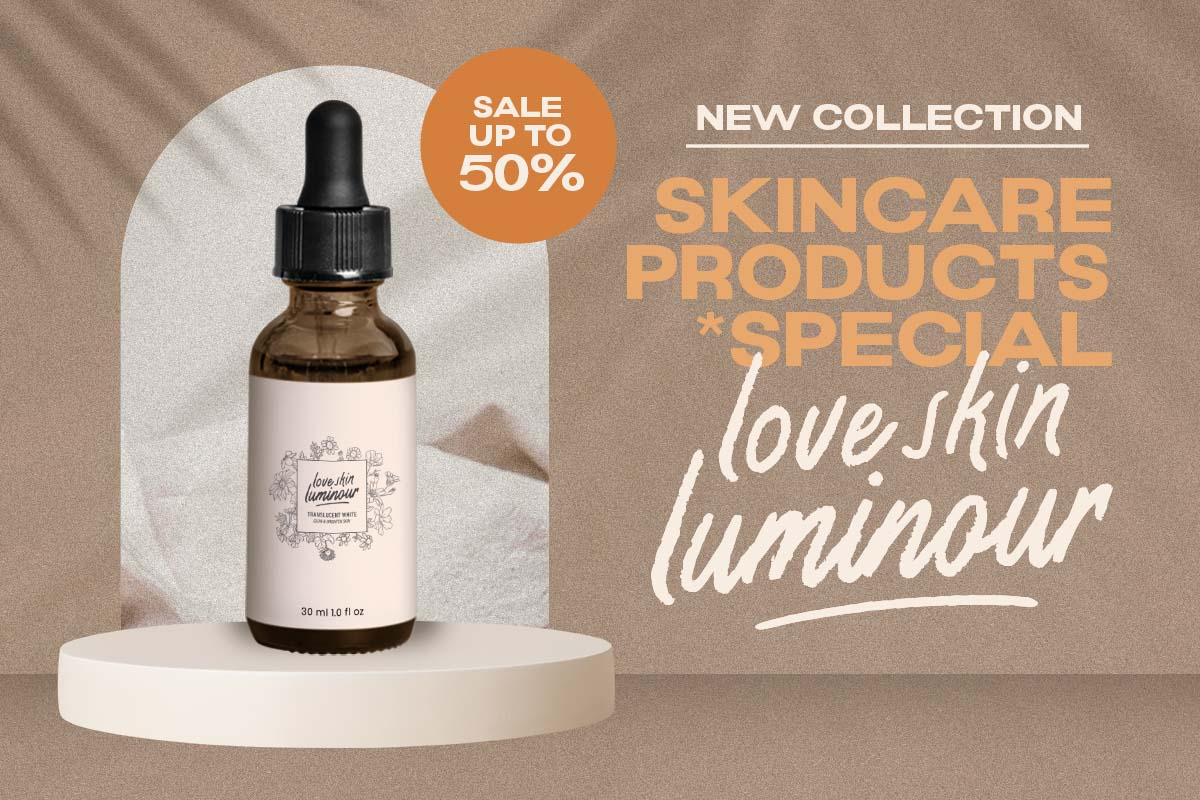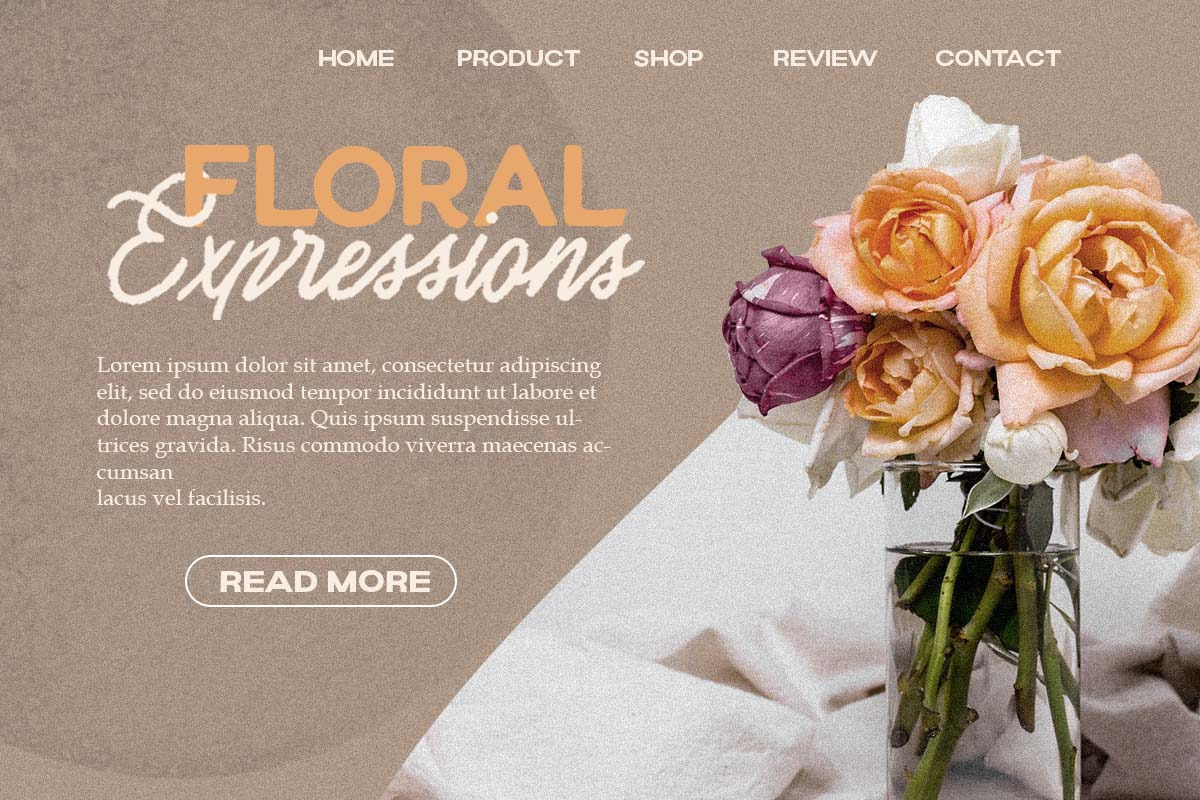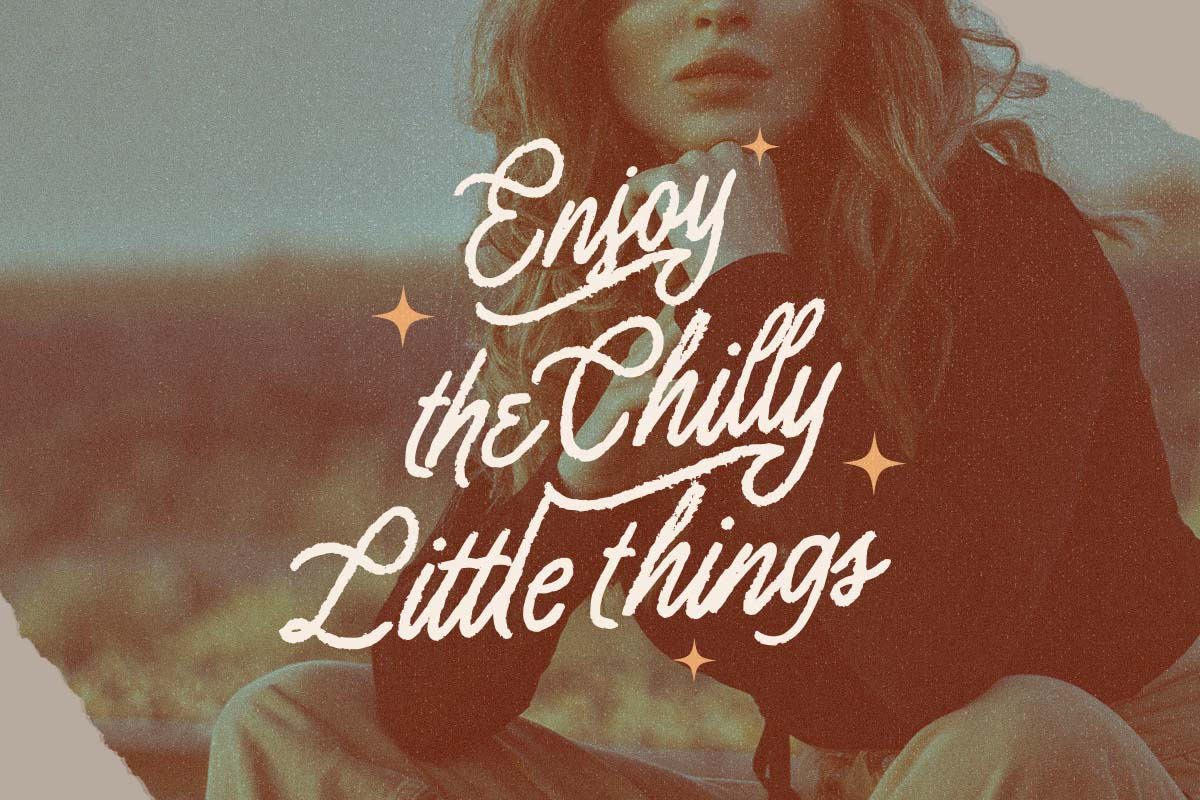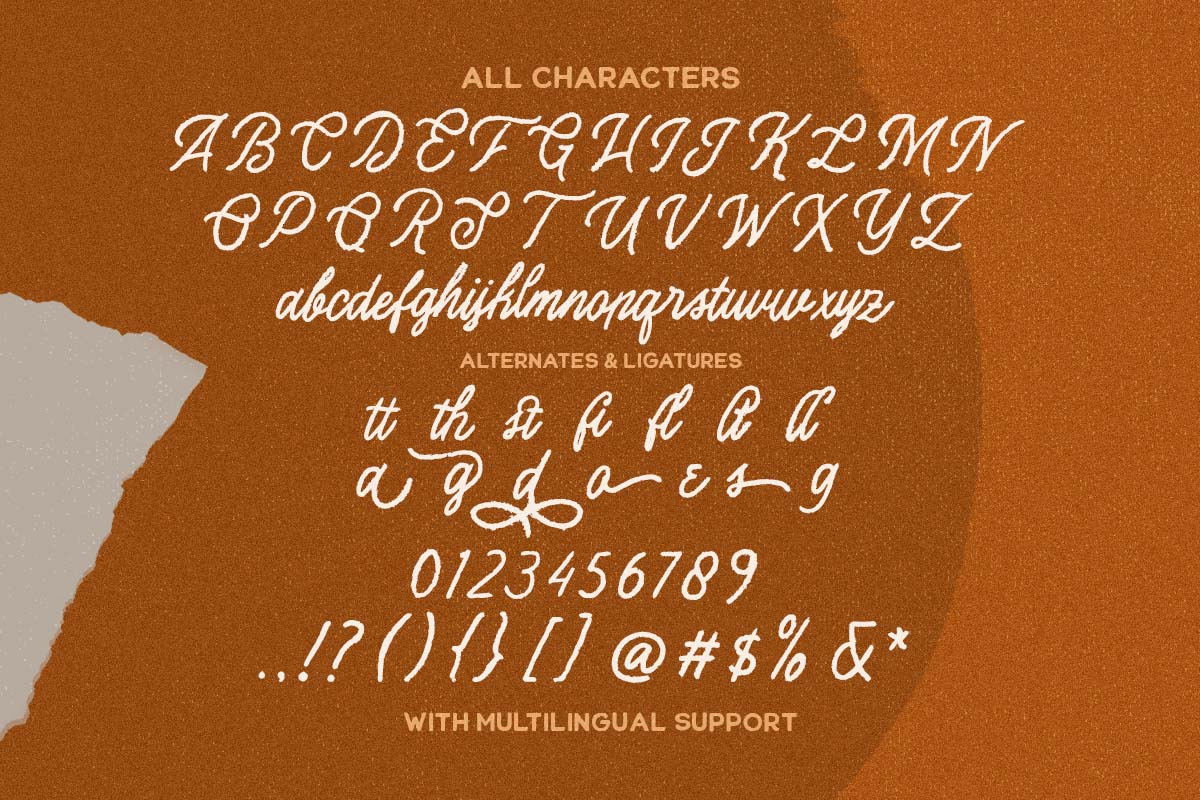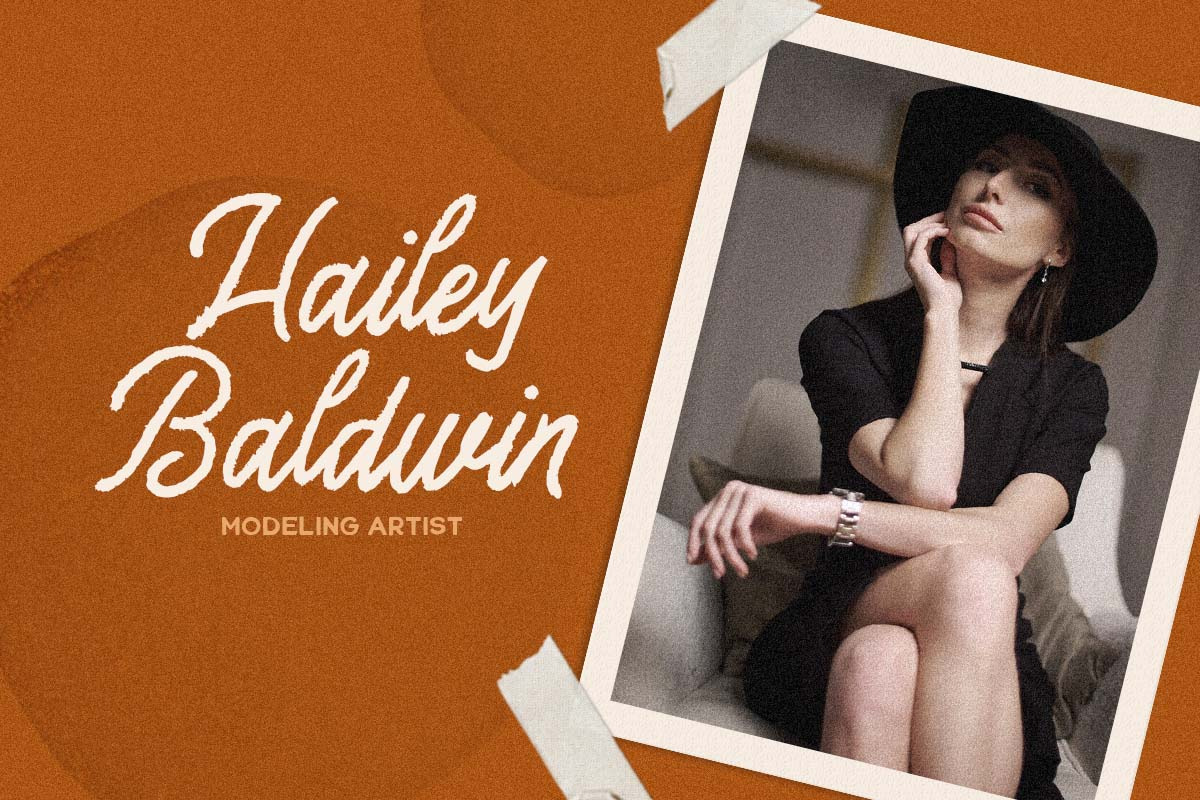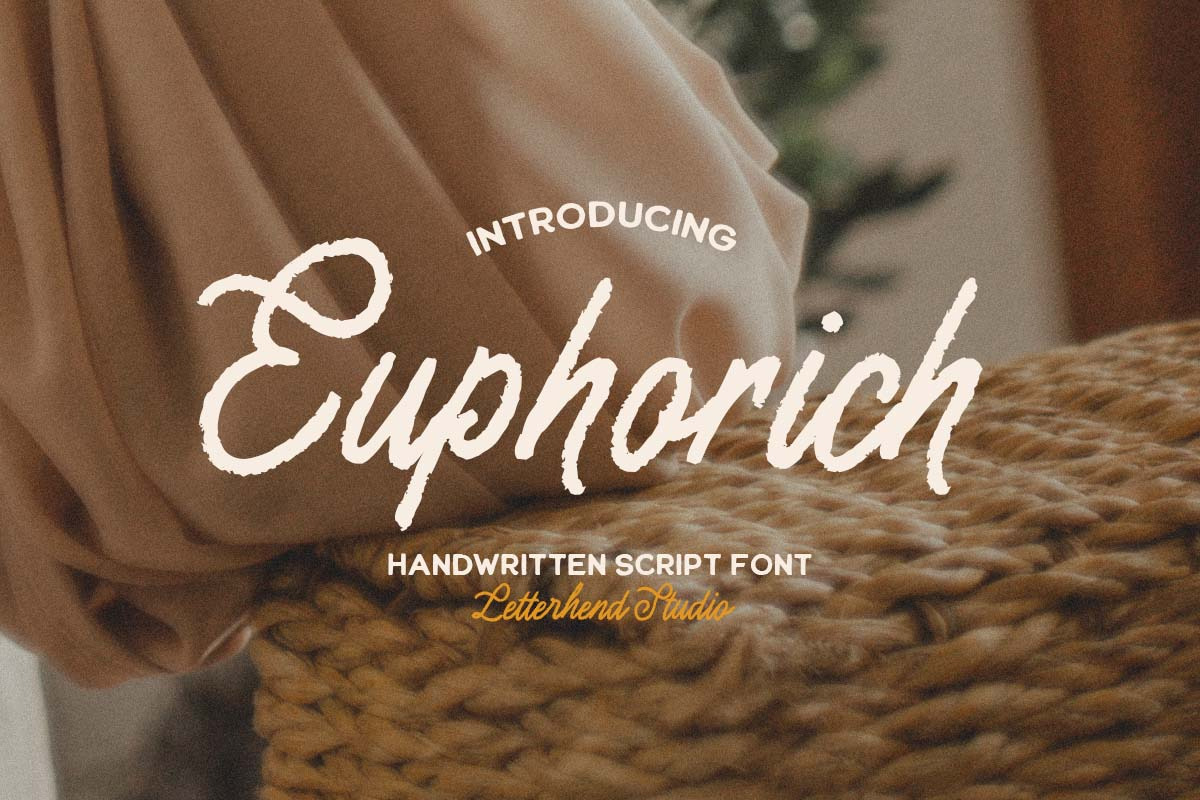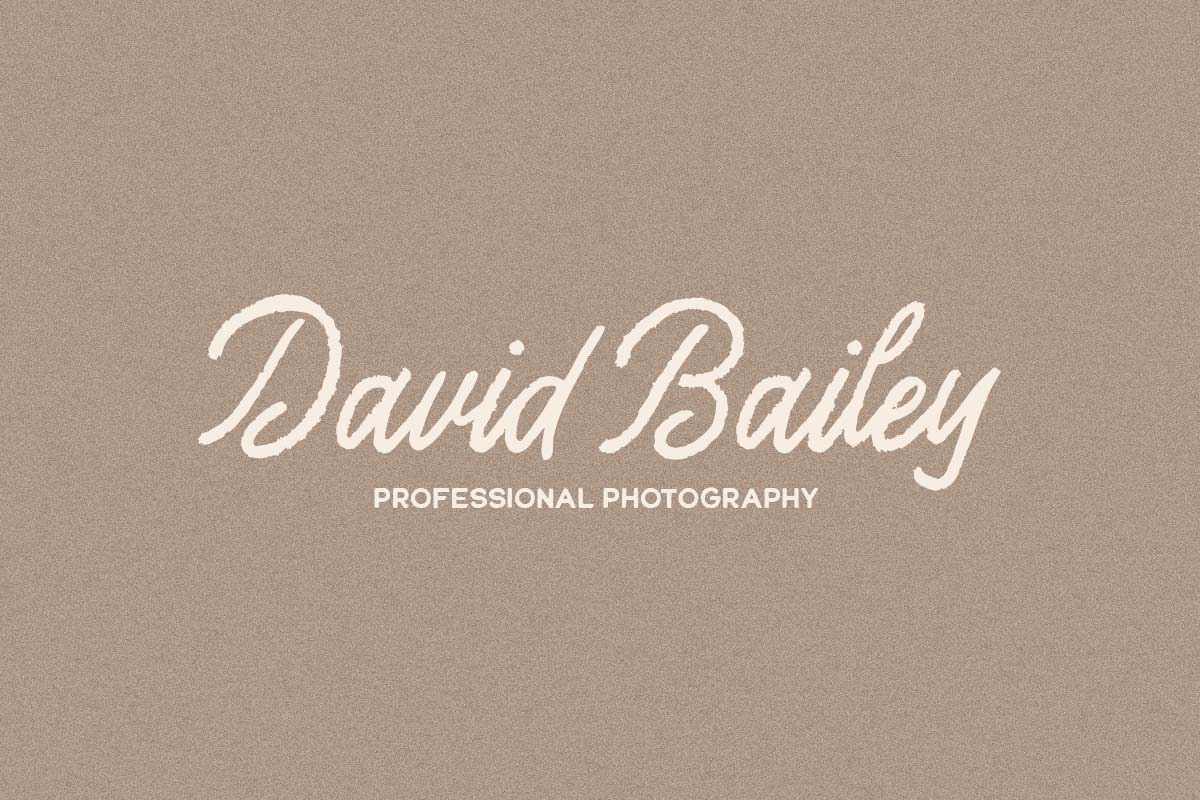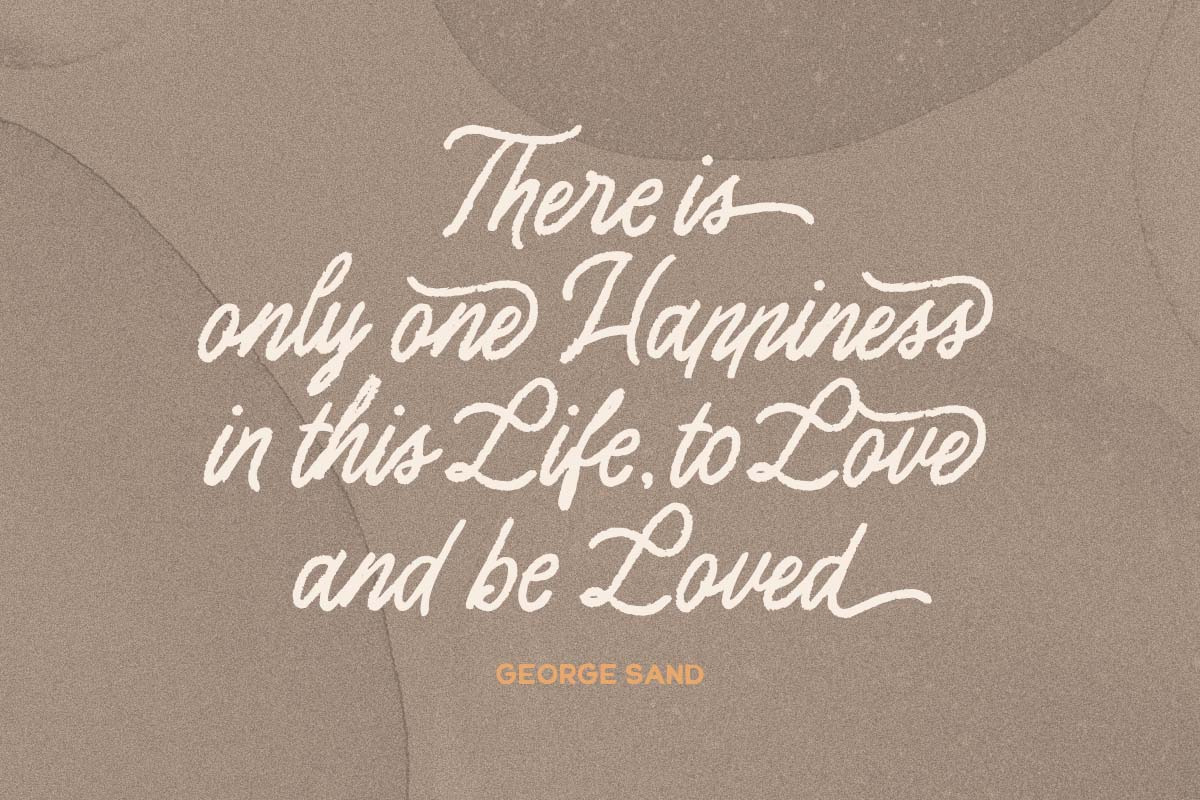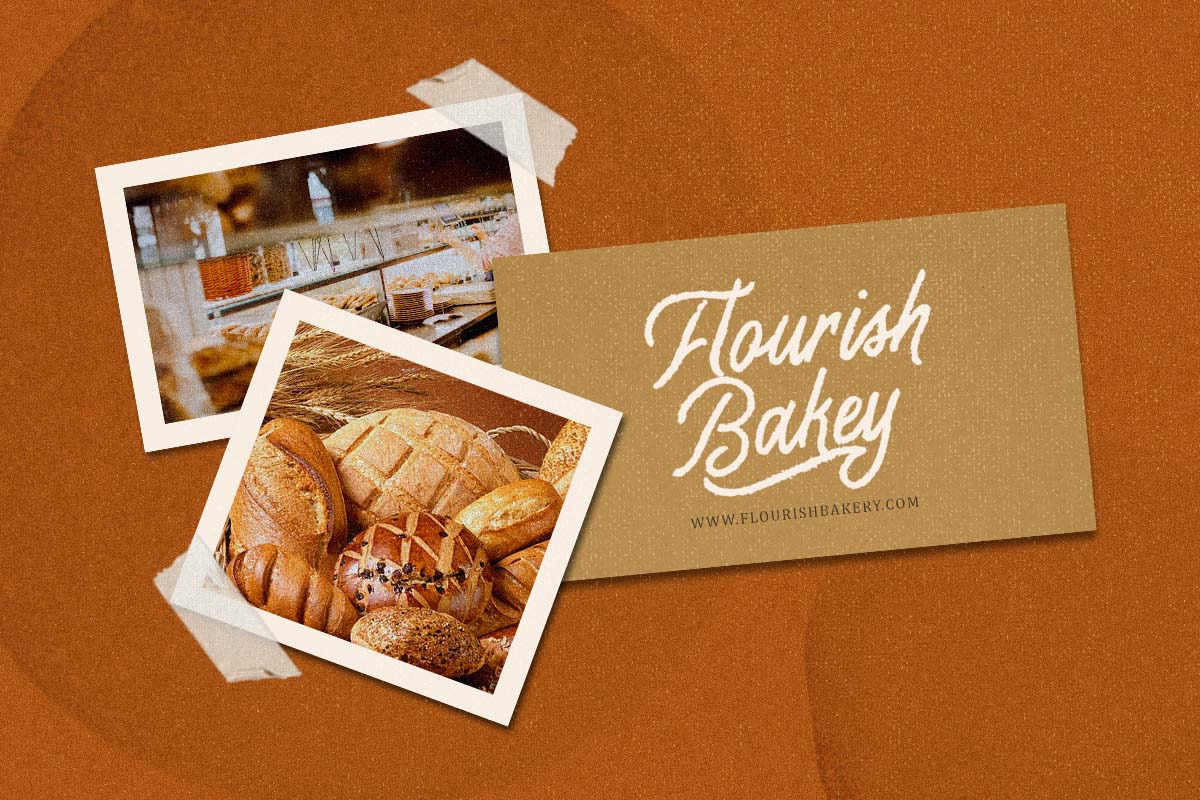
Euphorich - Handwritten Script Font
Euphorich is the organic script font that perfectly captures the casual of a handwritten. With its natural feel and casual, chic style, it's the perfect choice for branding, logos, and the other various formal forms such as invitations, labels, logos, magazines, books, greeting / wedding cards, packaging, fashion, make up, stationery, novels, labels or any type of advertising purpose where a personal touch is needed.
- alternates & ligatures